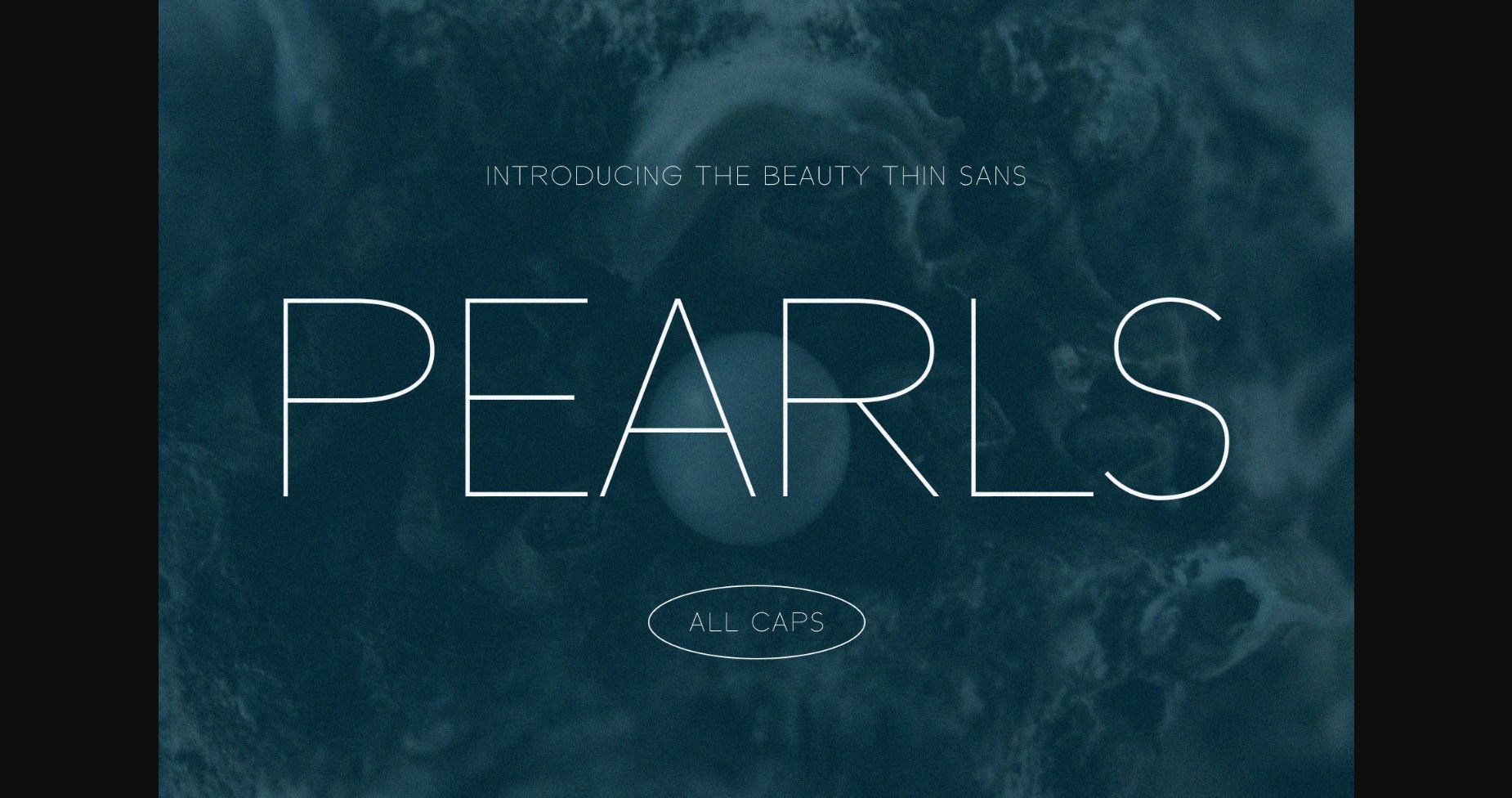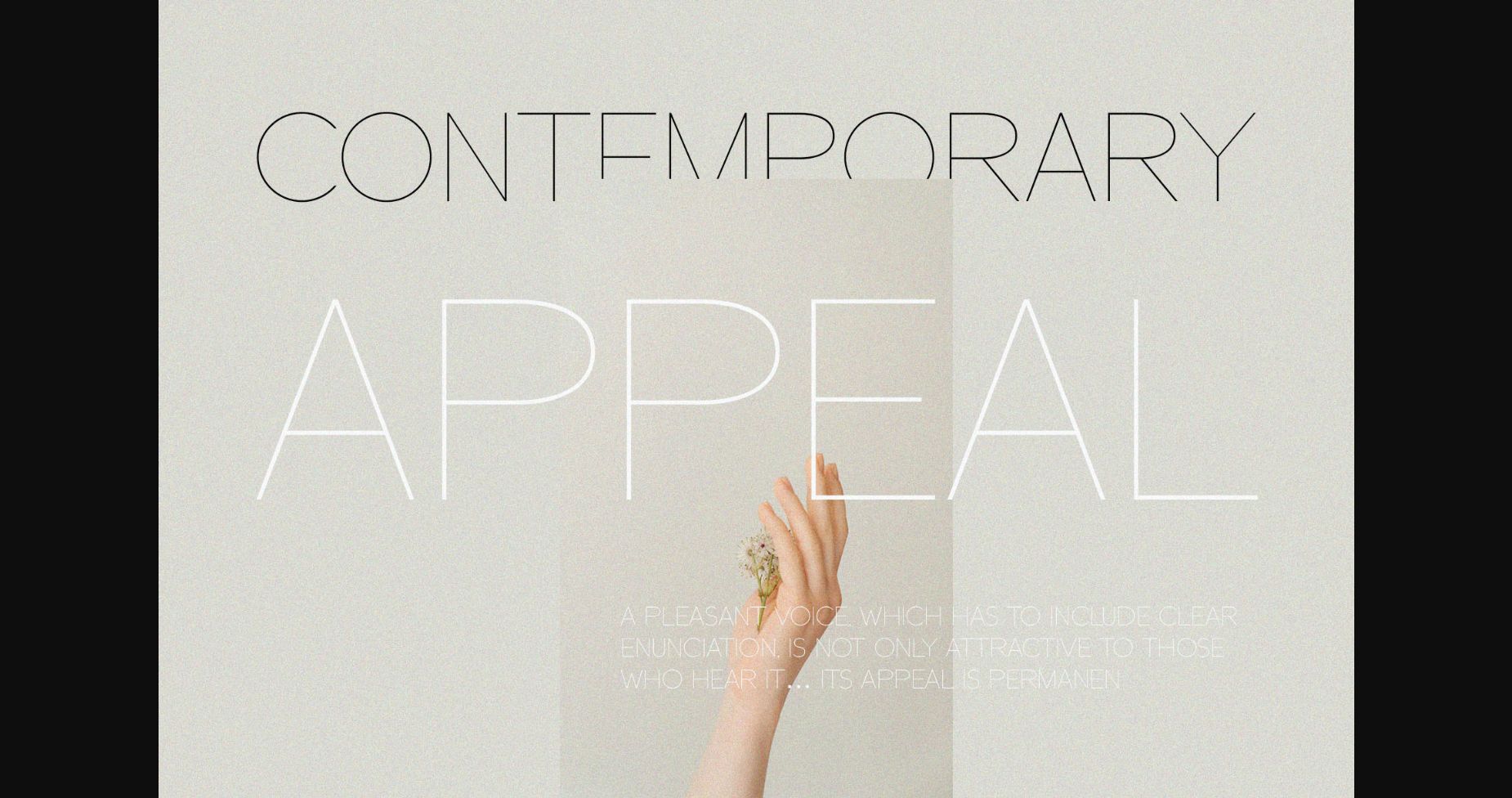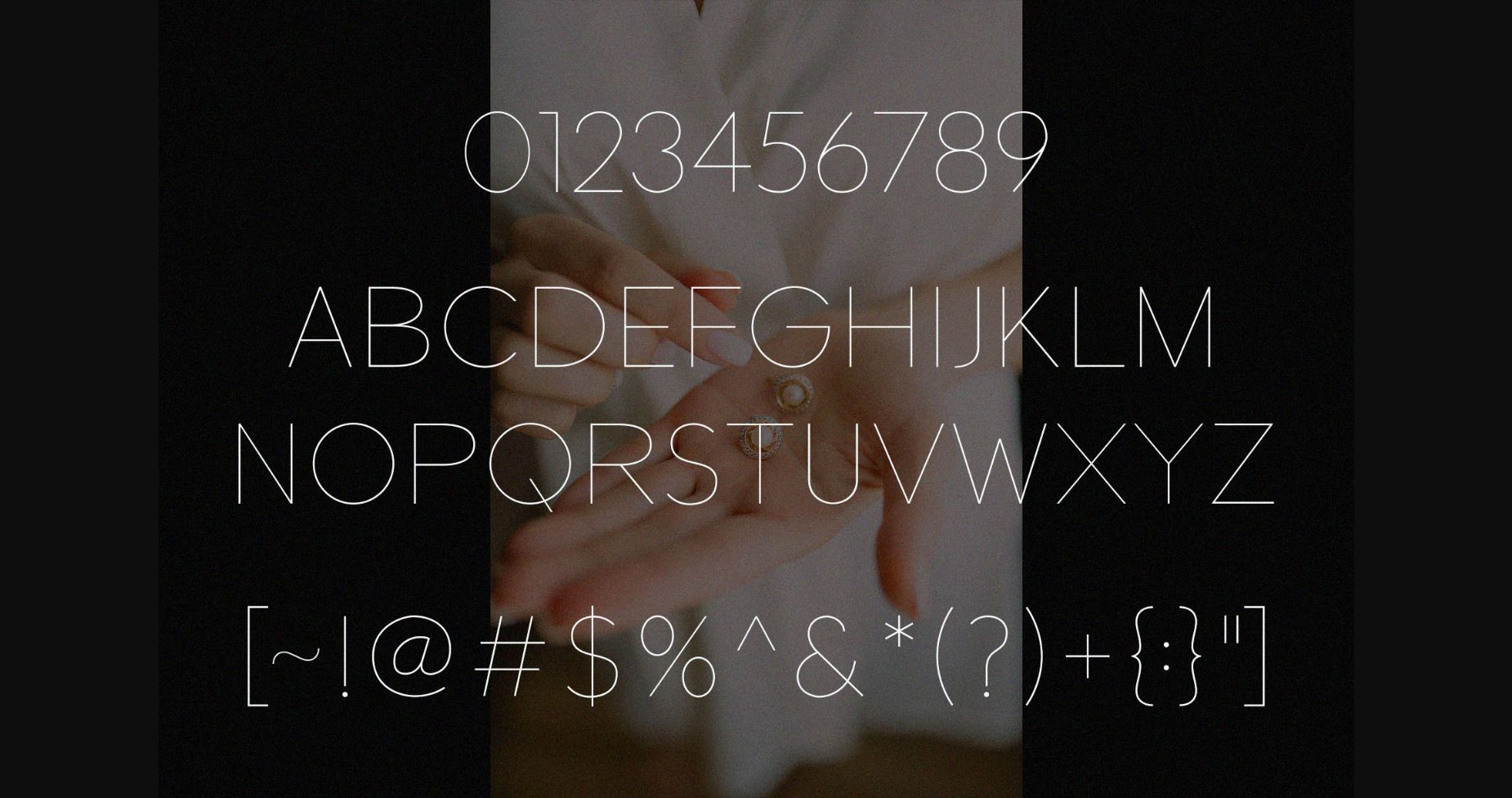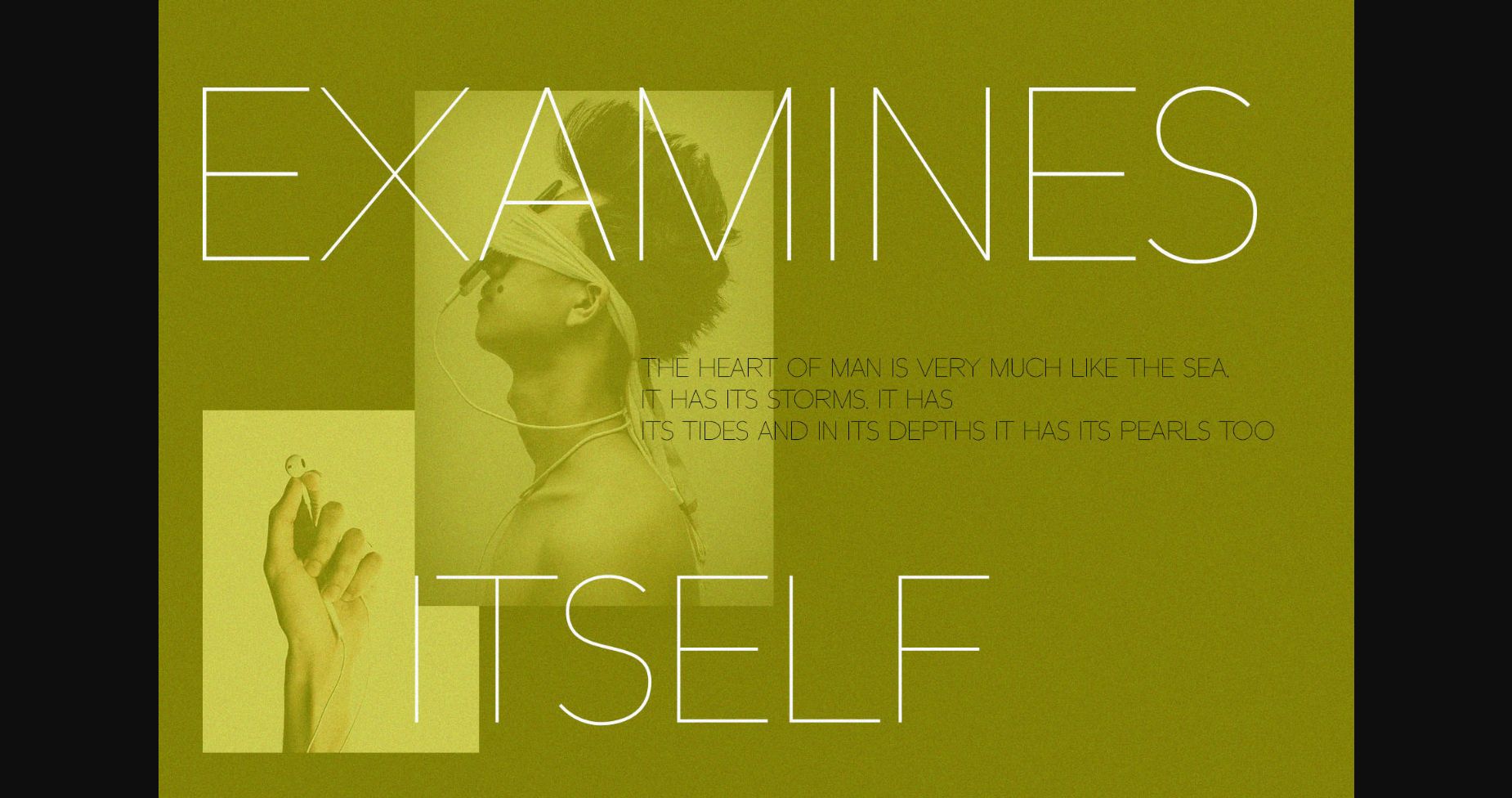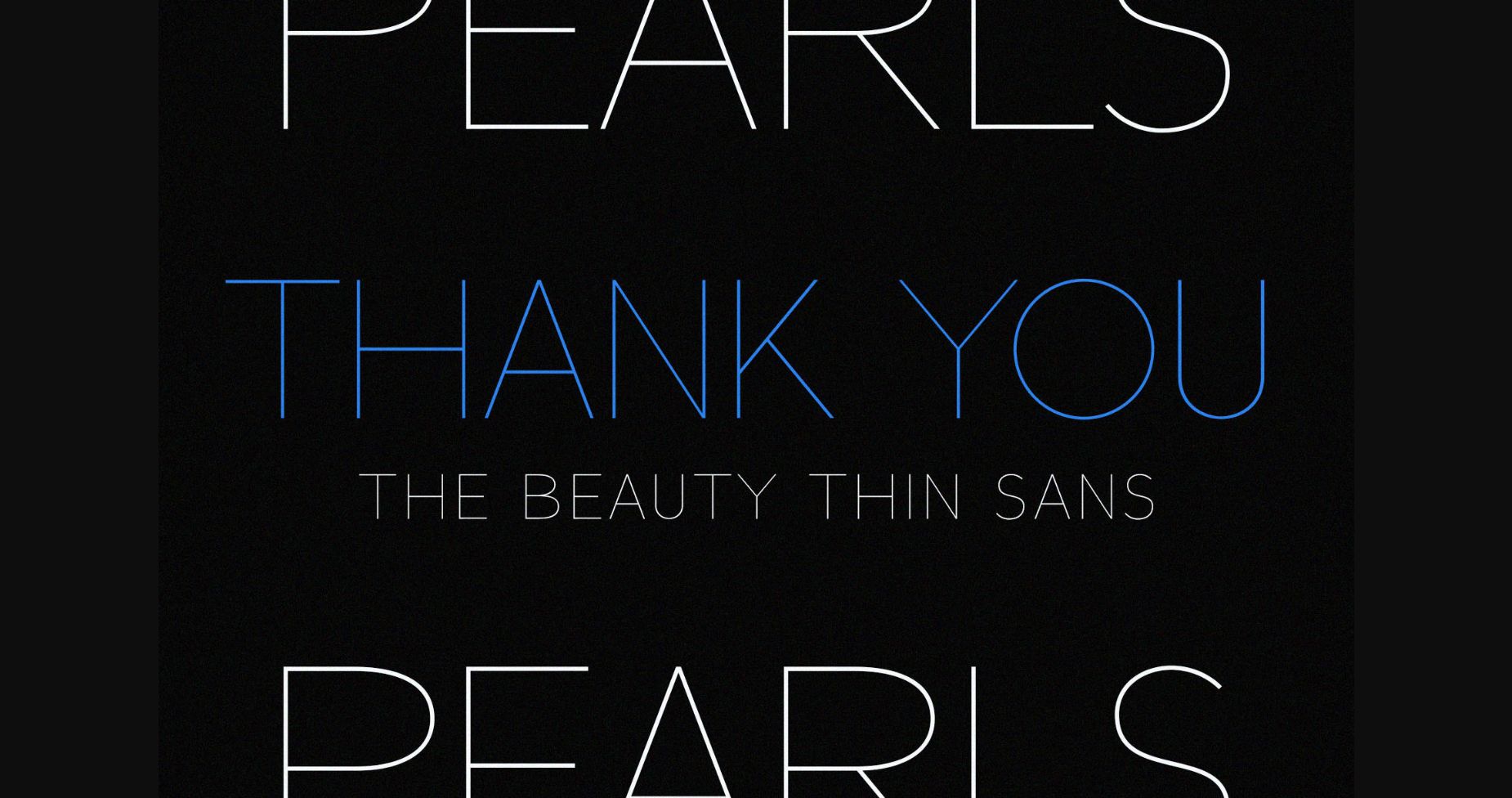
Pearls Font
About Pearls Font
Pearls is a modern sans serif font that exudes a sense of simplicity and sophistication. Its clean lines and minimalistic design make it perfect for branding and editorial projects. With Pearls, you can achieve a polished and professional look while maintaining a sense of approachability.